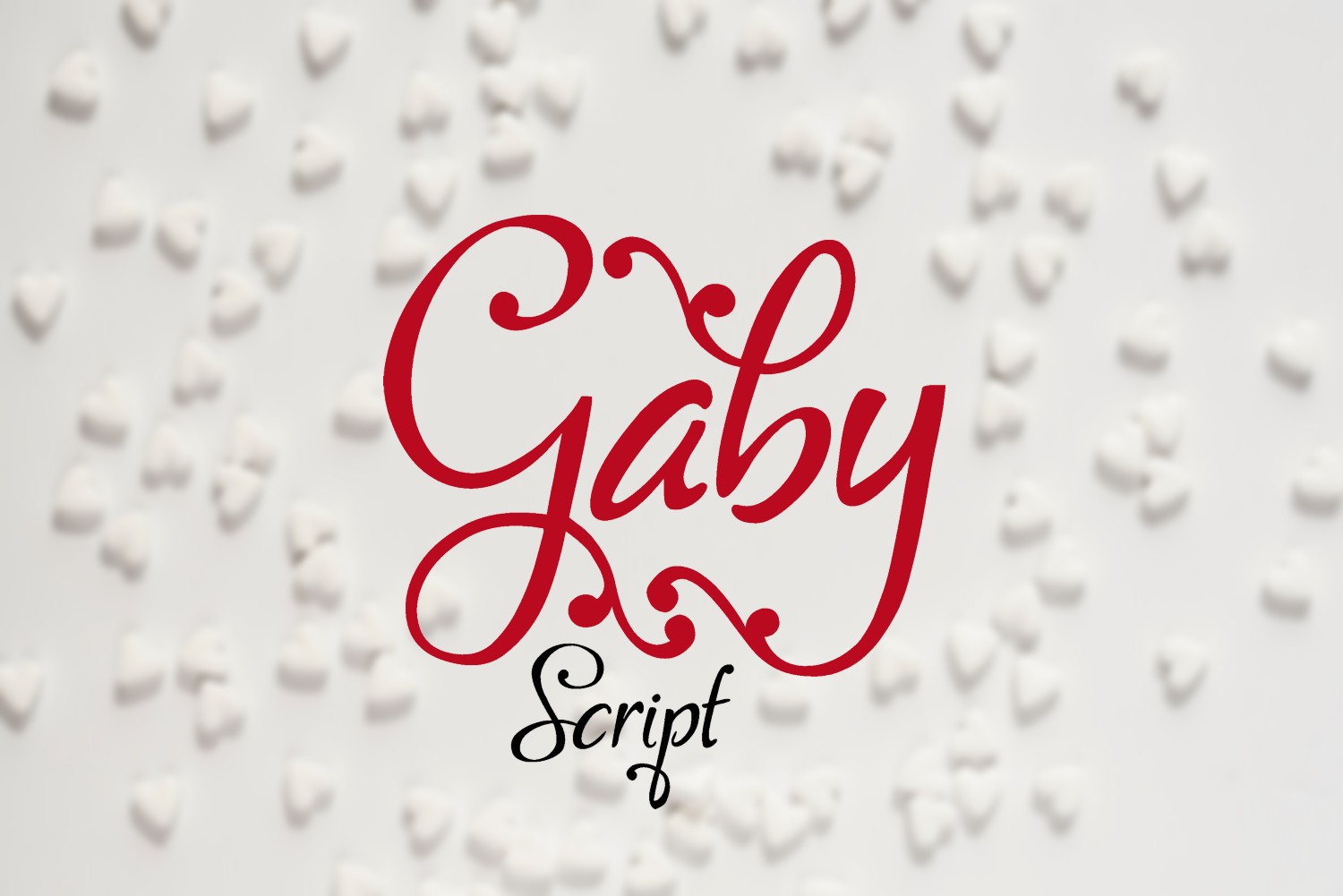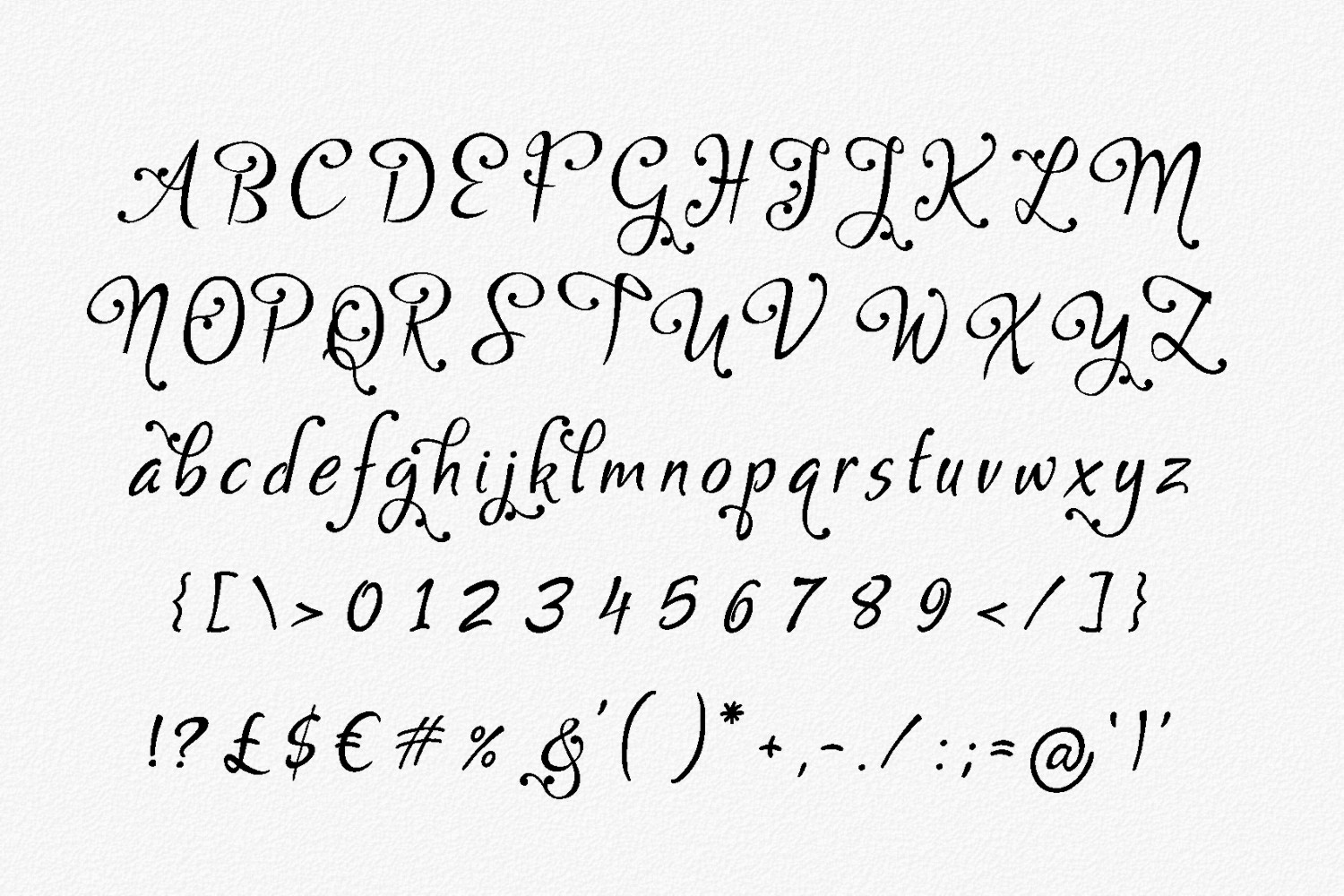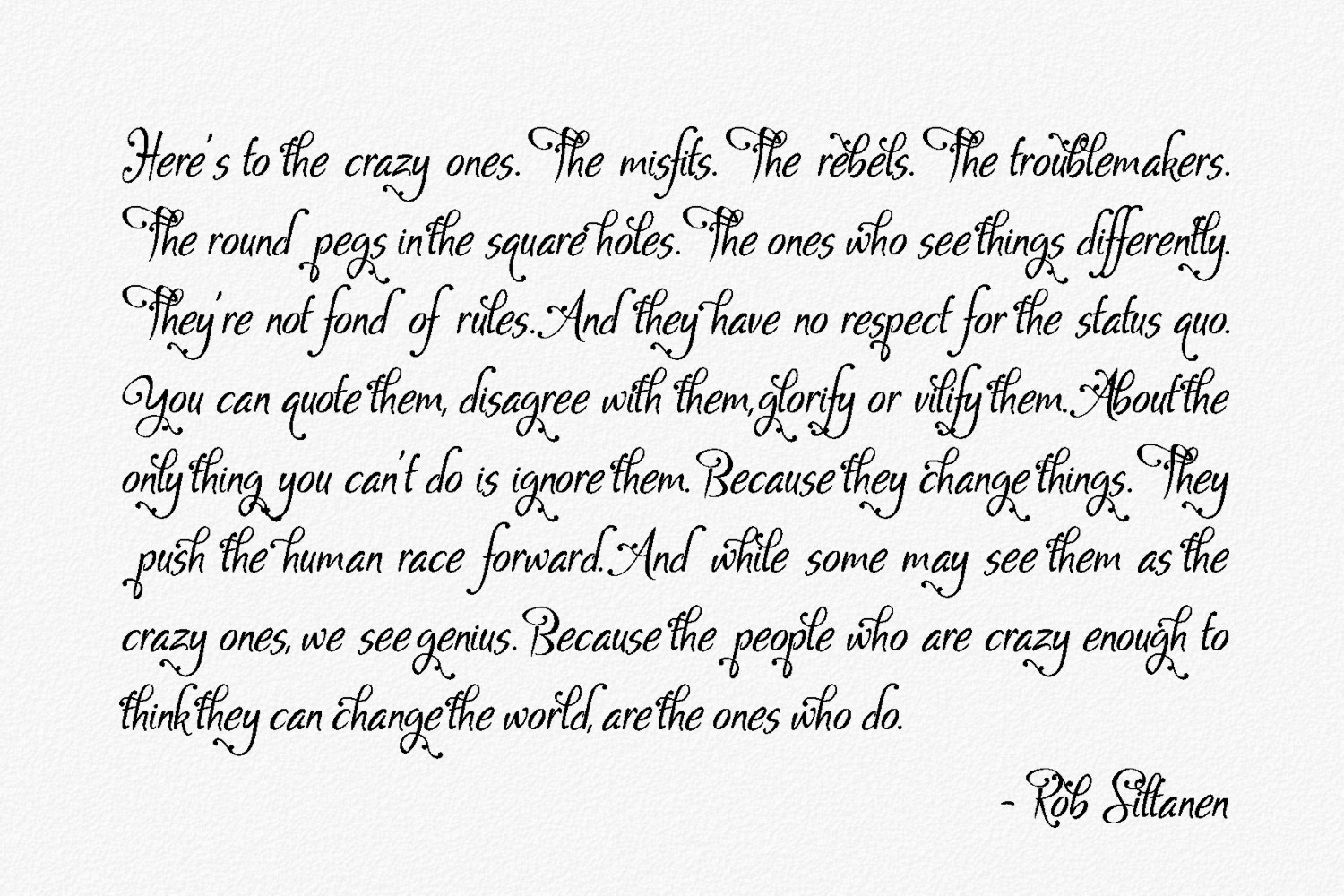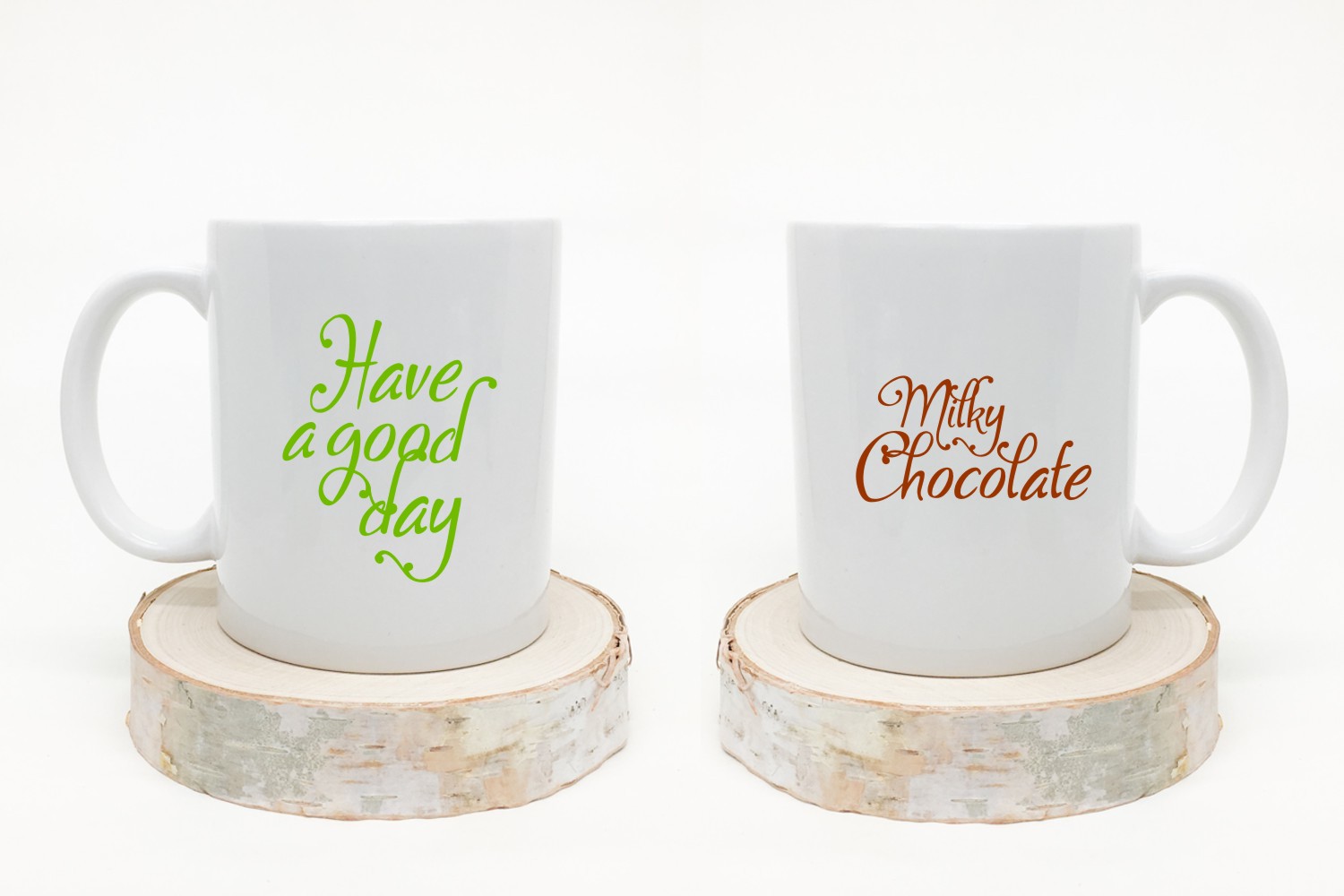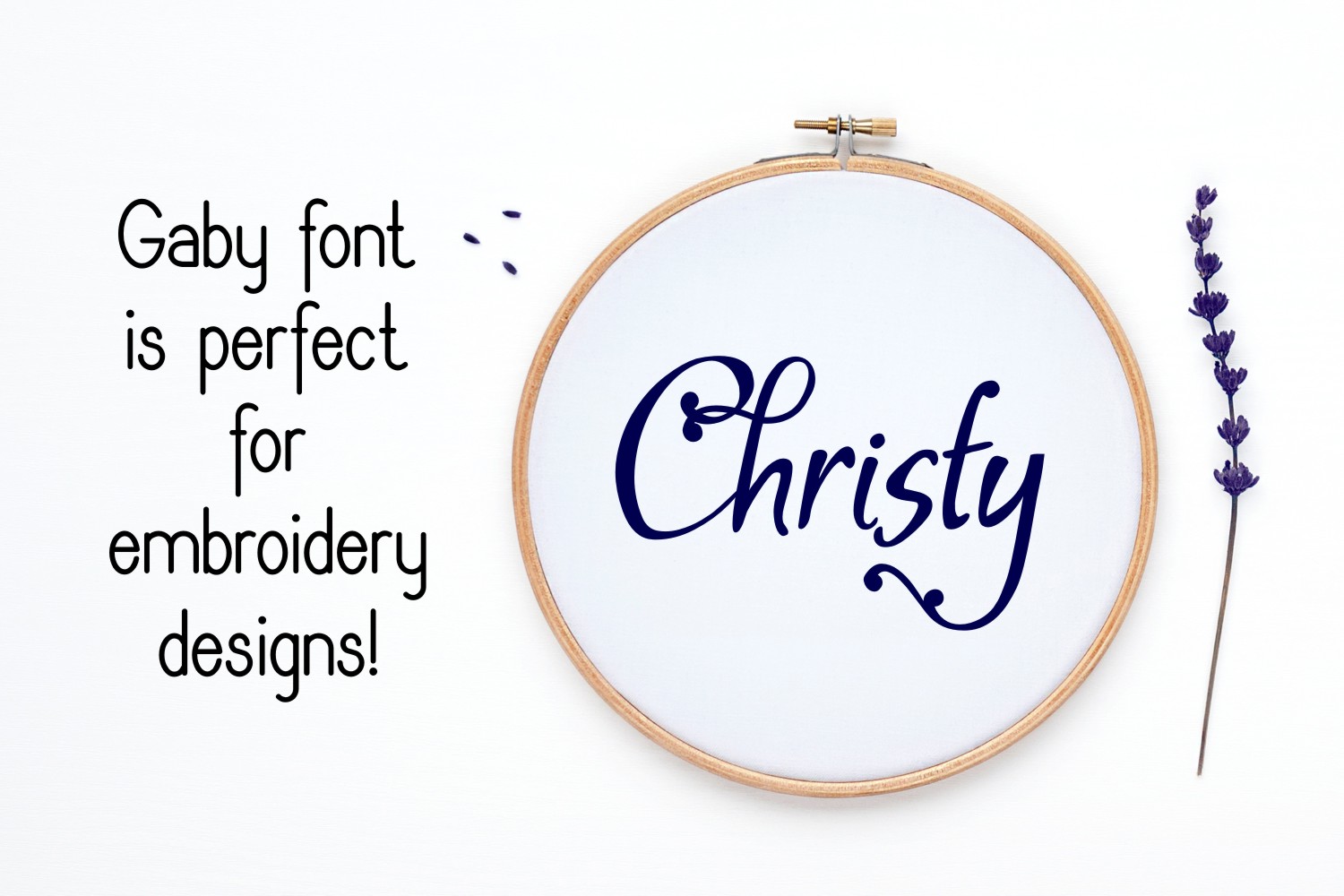
Gaby Font
About Gaby Font
Introducing Gaby, a fun and beautiful handwritten typeface. This script is embellished and engaging, making it suitable for logotype and display designs.